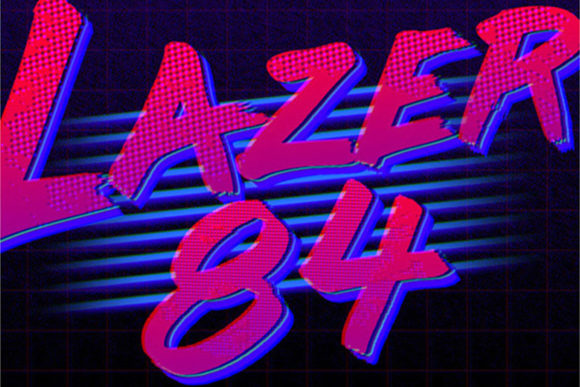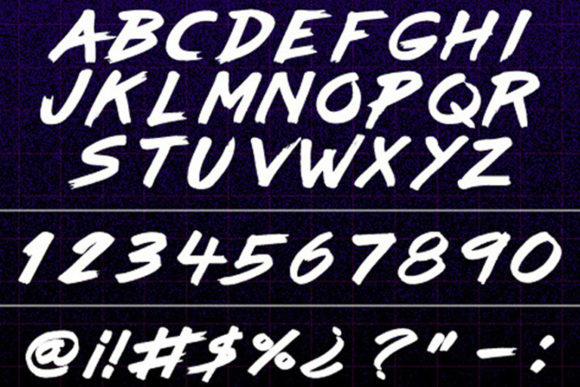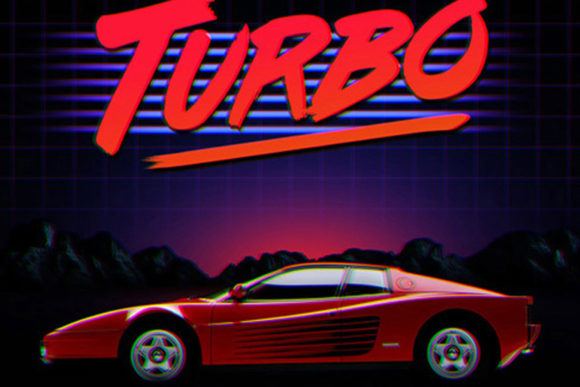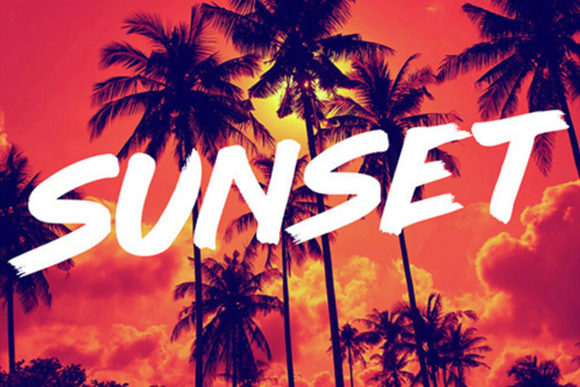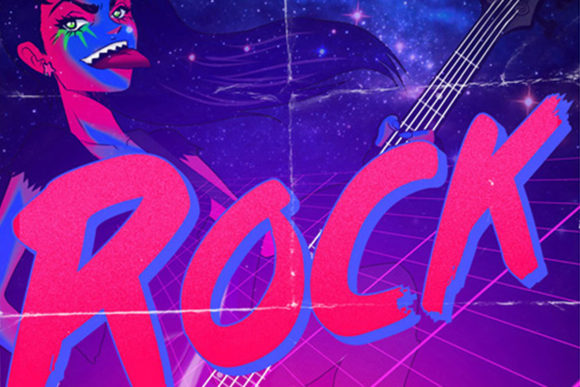
Lazer 84 is a retro style brush font inspired in 80’s. Get creative with its unique look, and use it to brighten up any crafting project that requires a personalized look!
Lazer 84 Font